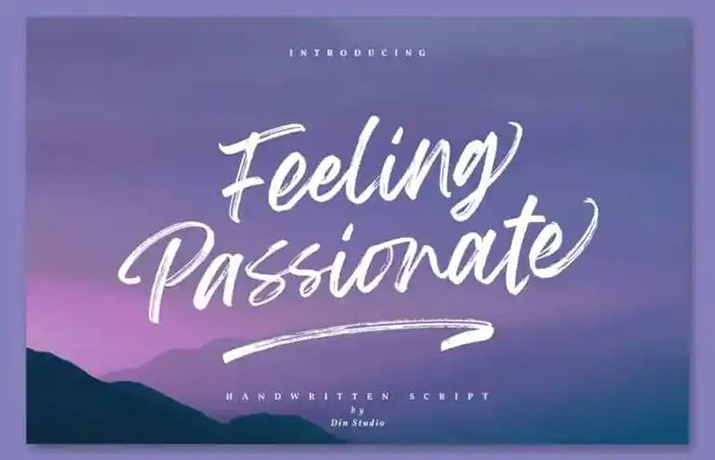
Feeling Passionate Font is a modern script typeface with fast dry brush strokes and signature styles, making this font look unique and elegant.
The efficiency and rationality of this font are improved by these glyphs. It is a member of the handwritten family of fonts.
Use it for logo design, t-shirts, headings, magazines, newspapers, websites, design quotations, posters, business cards, and others.
It comes with upper and lowercase Basic Characters, alternates for each lowercase letter, Numbers, Marks, Punctuation, Ligatures, and Swashes.
| Style: | Script, Brush, Display |
This font is highly recommended for complementing for posters, shop logos, crafts, baby, or children’s t-shirt designs, web blogs, special cards, invitations, taglines, branding, shopping bags, and package font content.